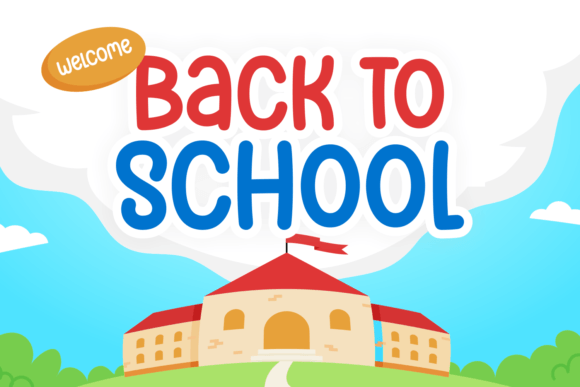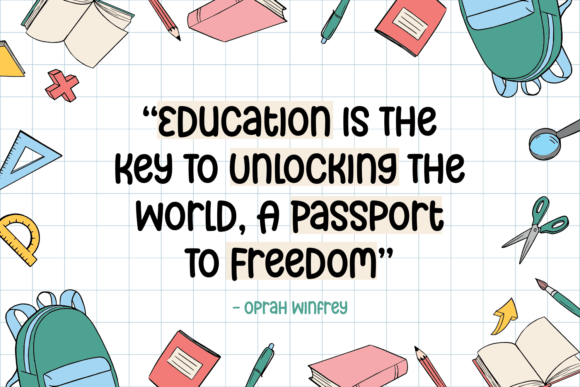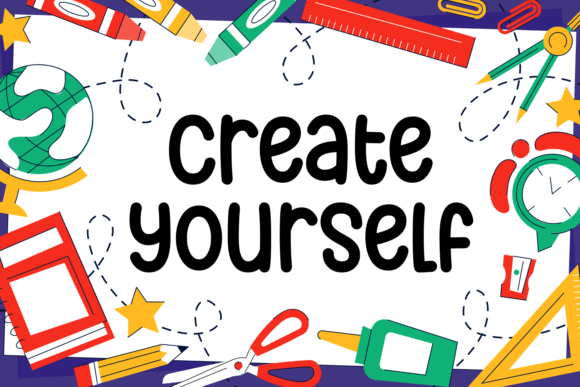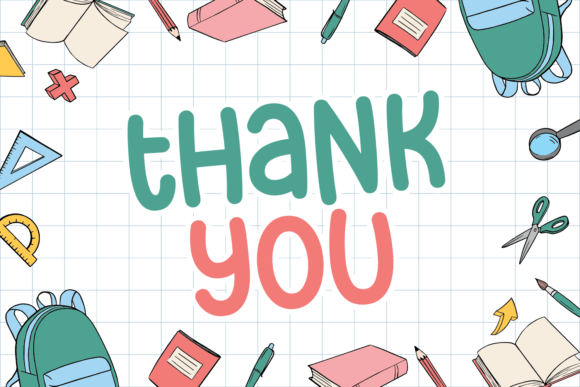
The Ultimate Guide to Active School Font: Adding a Friendly Touch to Your Designs
I’ll never forget the time I was working on a back-to-school project for a client, and I just couldn’t find the right font to capture the playful, yet professional vibe they were looking for. I scrolled through font after font, but nothing seemed quite right. That was until I stumbled upon Active School Font. It was like a breath of fresh air – friendly, lovely, and perfect for bringing a touch of whimsy to my designs.
An Honest Review of Active School Font
So, what makes Active School Font so special? Let’s dive in and take a closer look.
- ✨ Friendly and approachable style that’s perfect for a wide range of projects
- ✅ Highly versatile and can be used for both personal and professional designs
- 💕 Lovely, playful vibe that’s sure to capture your audience’s attention
- 👍 Easy to read and understand, even at smaller font sizes
While Active School Font is an amazing addition to any design project, there are a few things to keep in mind:
- 🤔 Some users may find the font a bit too playful for very formal or corporate designs
- ⚠️ Limited availability of certain OpenType features, such as ligatures or swashes
The Story Behind Active School Font
Active School Font was designed with the intention of creating a friendly, approachable font that would bring a touch of playfulness to everyday designs. The designer, inspired by the joy of learning and creativity, crafted a font that would be perfect for projects that require a bit of whimsy and fun.
| What type of projects is Active School Font best suited for? | Active School Font is perfect for a wide range of projects, including back-to-school designs, wedding invitations, party decorations, and more! |
| Is Active School Font available in different weights or styles? | Active School Font is available in a single weight, but its versatility and range of OpenType features make it easy to adapt to different design needs. |
In conclusion, Active School Font is an amazing addition to any design project, offering a friendly, playful vibe that’s sure to capture your audience’s attention. With its versatility, range of OpenType features, and ease of use, it’s perfect for designers, crafters, and creative hobbyists alike. So why not give it a try and see how Active School Font can bring a touch of whimsy to your designs?